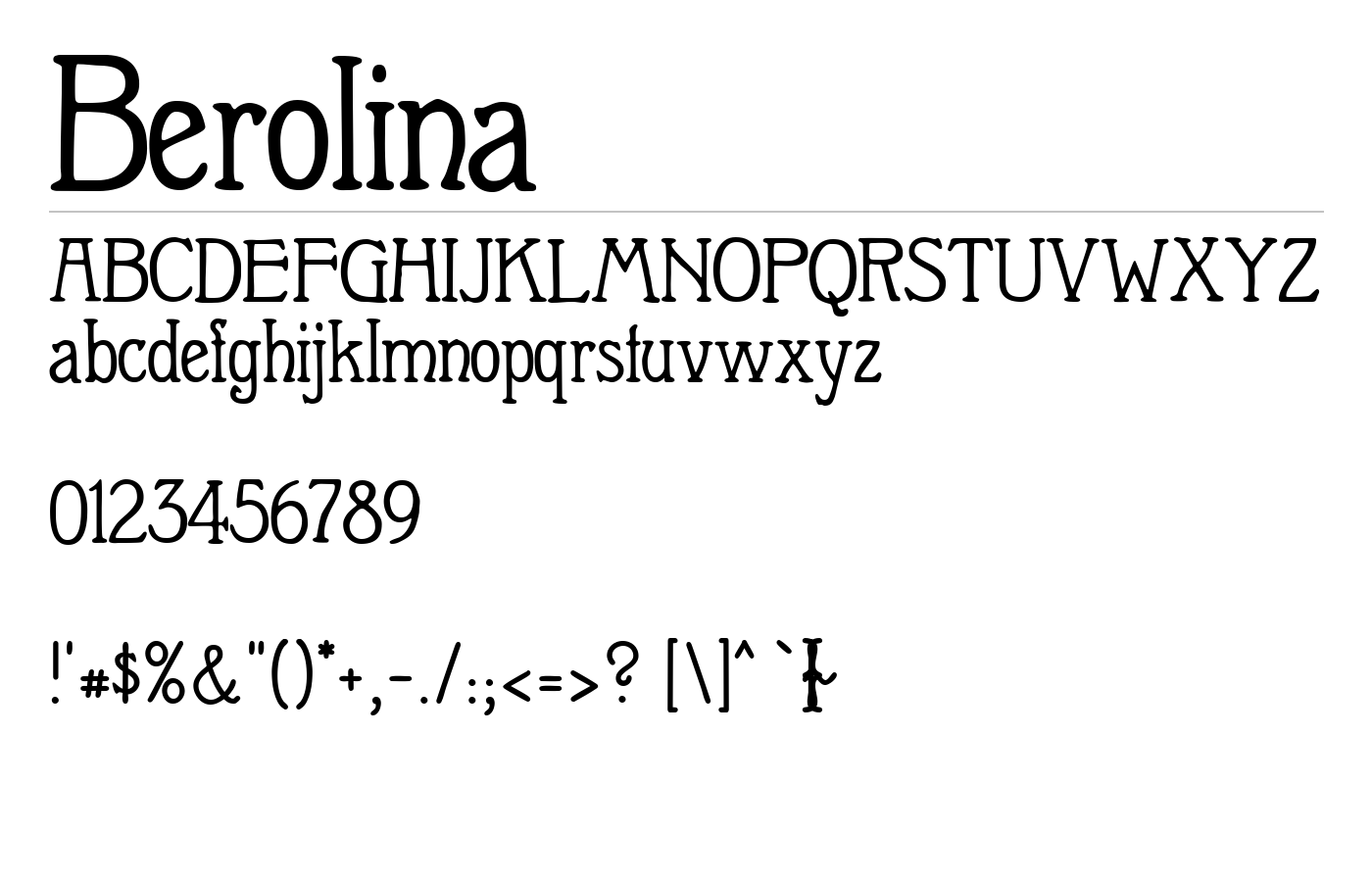
Berolina is a distinctive serif font with a playful yet refined character, featuring moderate stroke contrast and gently bracketed serifs that give it a slightly vintage feel. Its tall x-height and narrow letterforms create an elegant but approachable look, making it well-suited for creative headlines, logos, and editorial designs that seek a touch of personality without losing clarity. This font shines in projects that want to balance classic charm with a quirky, modern twist.
About Berolina Font